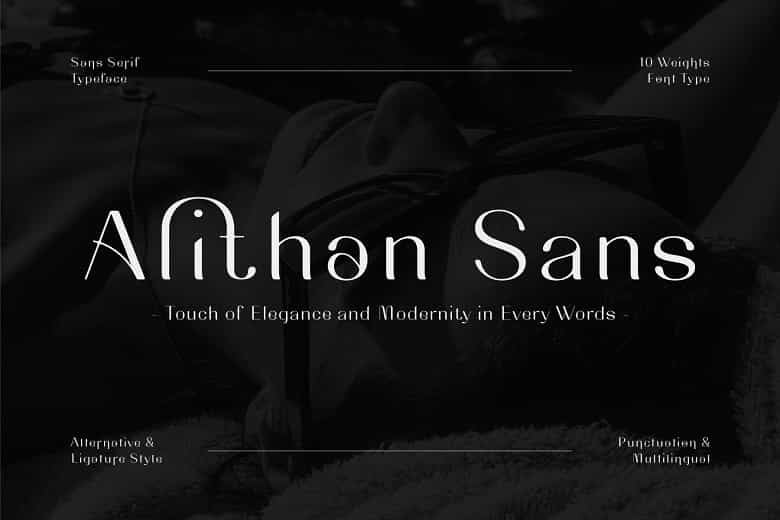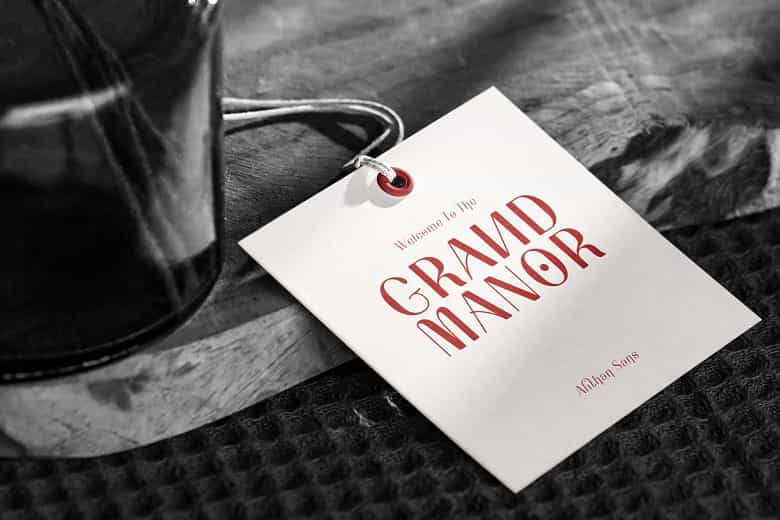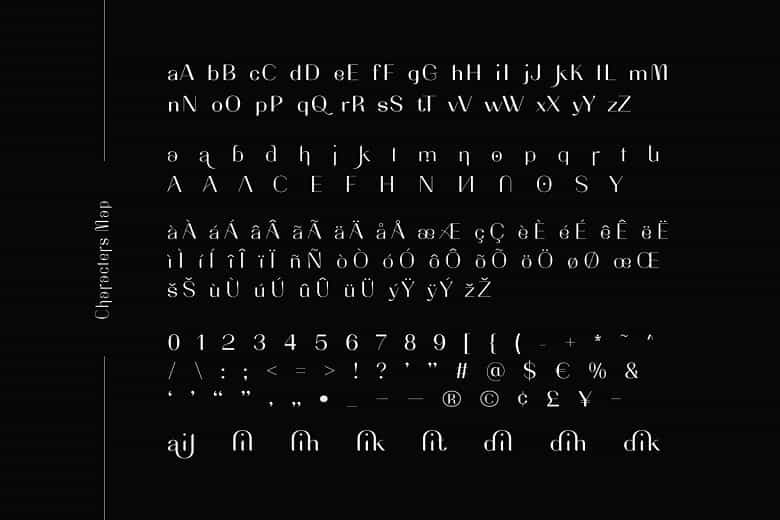
Alithan Sans enhances your design with its fresh and sophisticated look of the font. This fresh and elastic sans tipos answers your need for 5 weights, italics and lots of ligatures to create your most personal and stunning works. Alithan Sans – the right font for today’s works and today’s designs.